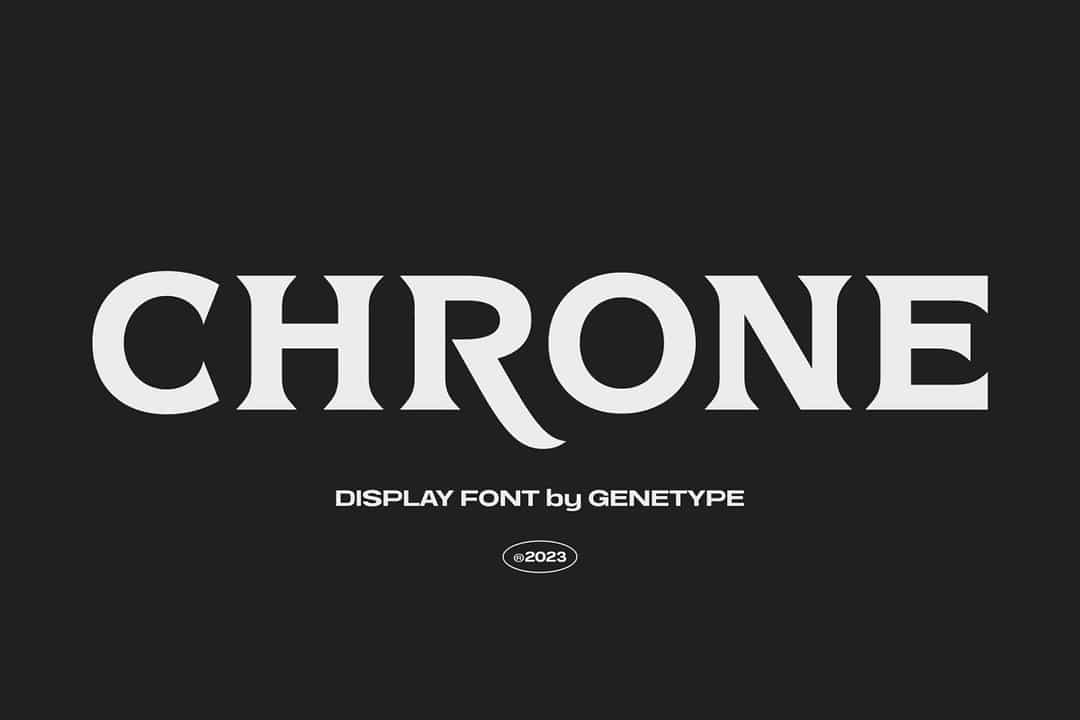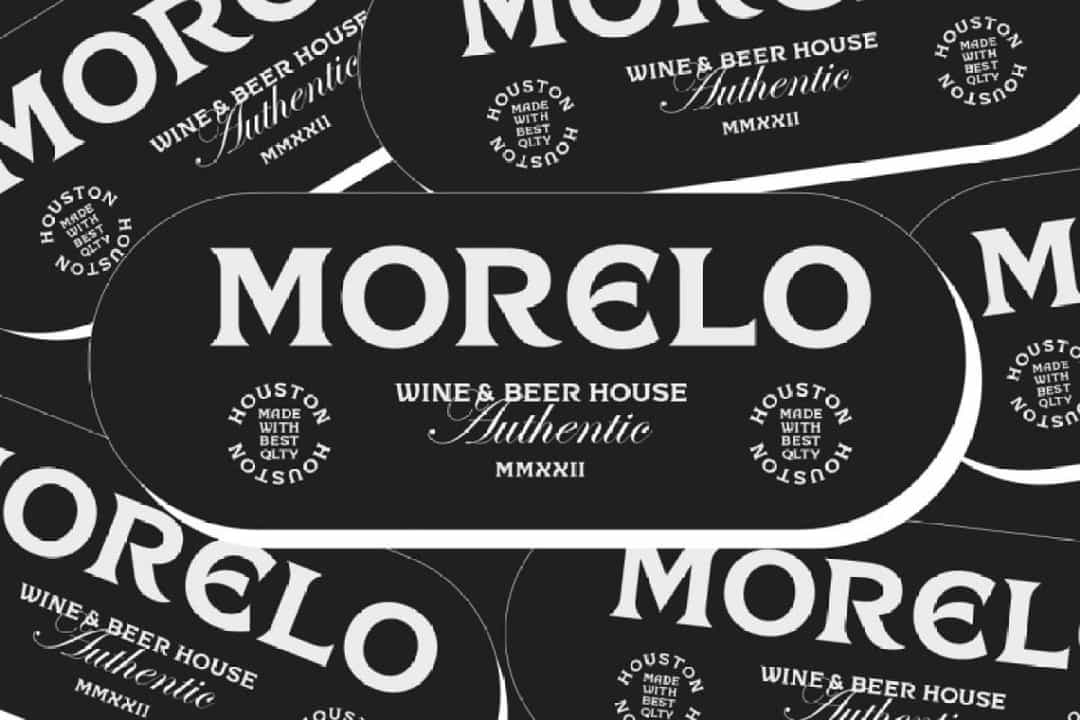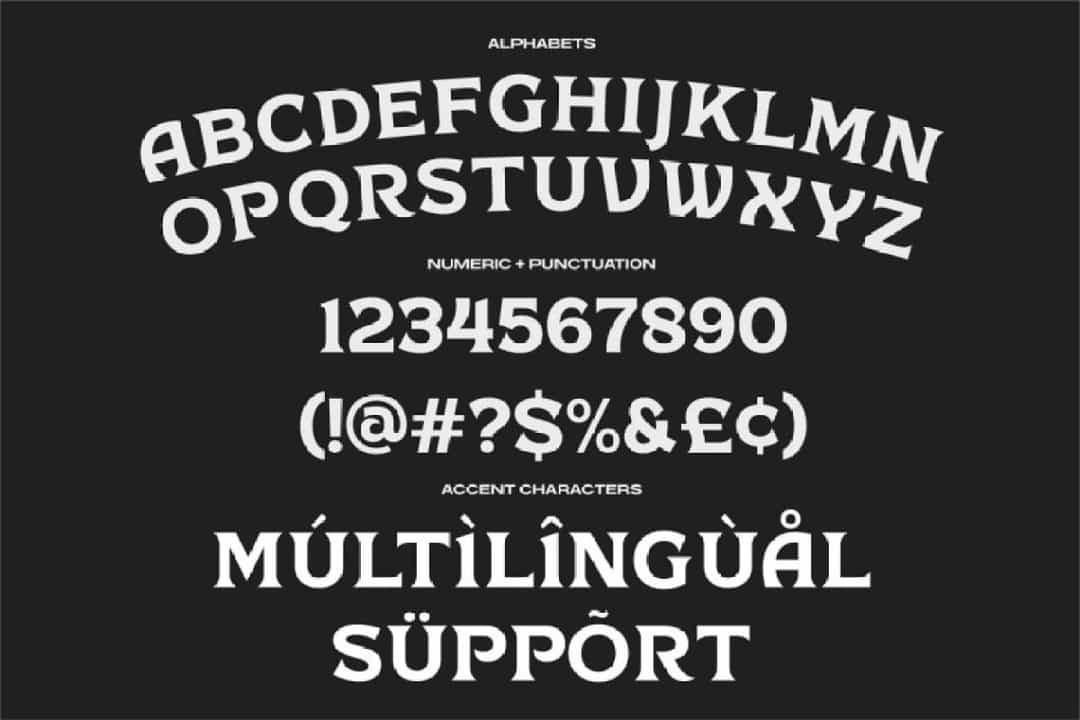
Chrone Font
Chrone Font Unleash the Men’s Elegance. Experience the ultimate of masculine elegance with Chrone Serif, an elegant font that radiates strength. Perfect for everything from powerful titles to classic logos, its striking serifs radiate confidence – giving your designs that extra something. Explore Chrone Serif and make an impactful statement today.